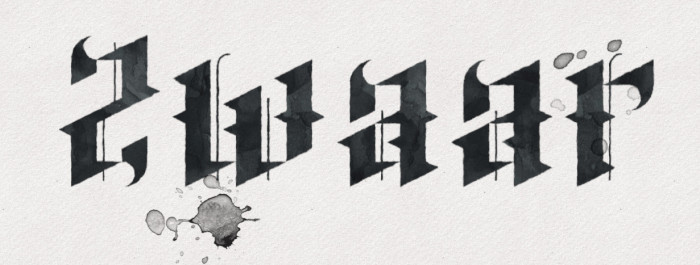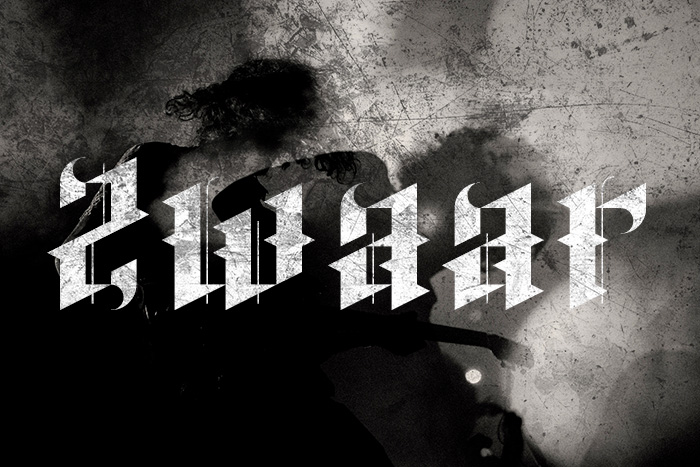
Beautiful and elegant 10/10
Een zware jongen!
Proper submission from one of Fontstruct's OG's.
Wonderful how you used simple modular solurion for adding the accents, clever stuff!
Cool, you are very good in gothic, I love it, looks great in extra large sizes, perfect for a poster or album cover. There's something wrong with the side-bearing of numbers 5-9, and it might be worth extending the J down a bit, I think.
WOOOOW!!! Another instant clasic from four! Totally consumed by envy, I have to admit that this is another of those fonts that I would have liked to be able to sign myself (I have to settle, this one at least starts with "z", hehehe). Congrats, compañero!
It is masterful. The getting around the limitations of the FontStructor to create the glyphs with such consistency must have been a real challenge. Well overcome.
Plus the glyphs themselves have so many nice touches. The ear of the r is beautiful; the way the grave of the À connects to the rest of the shape; gorgeous quation marks; &c. &c.
So well done.